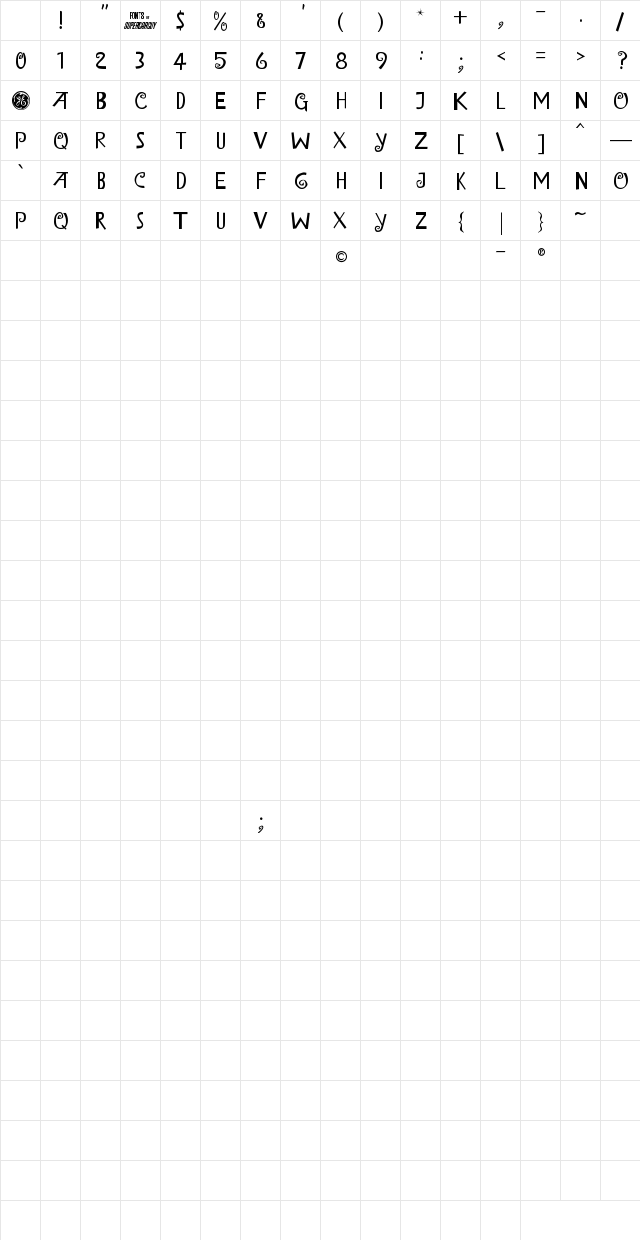
Island of Misfit Toys Alt. Regular
Designer: Steve Fererra
Design Context for Island of Misfit Toys Alt.
Island of Misfit Toys Alt. is a composed and adaptable typeface that performs quietly and consistently across a wide range of design contexts.